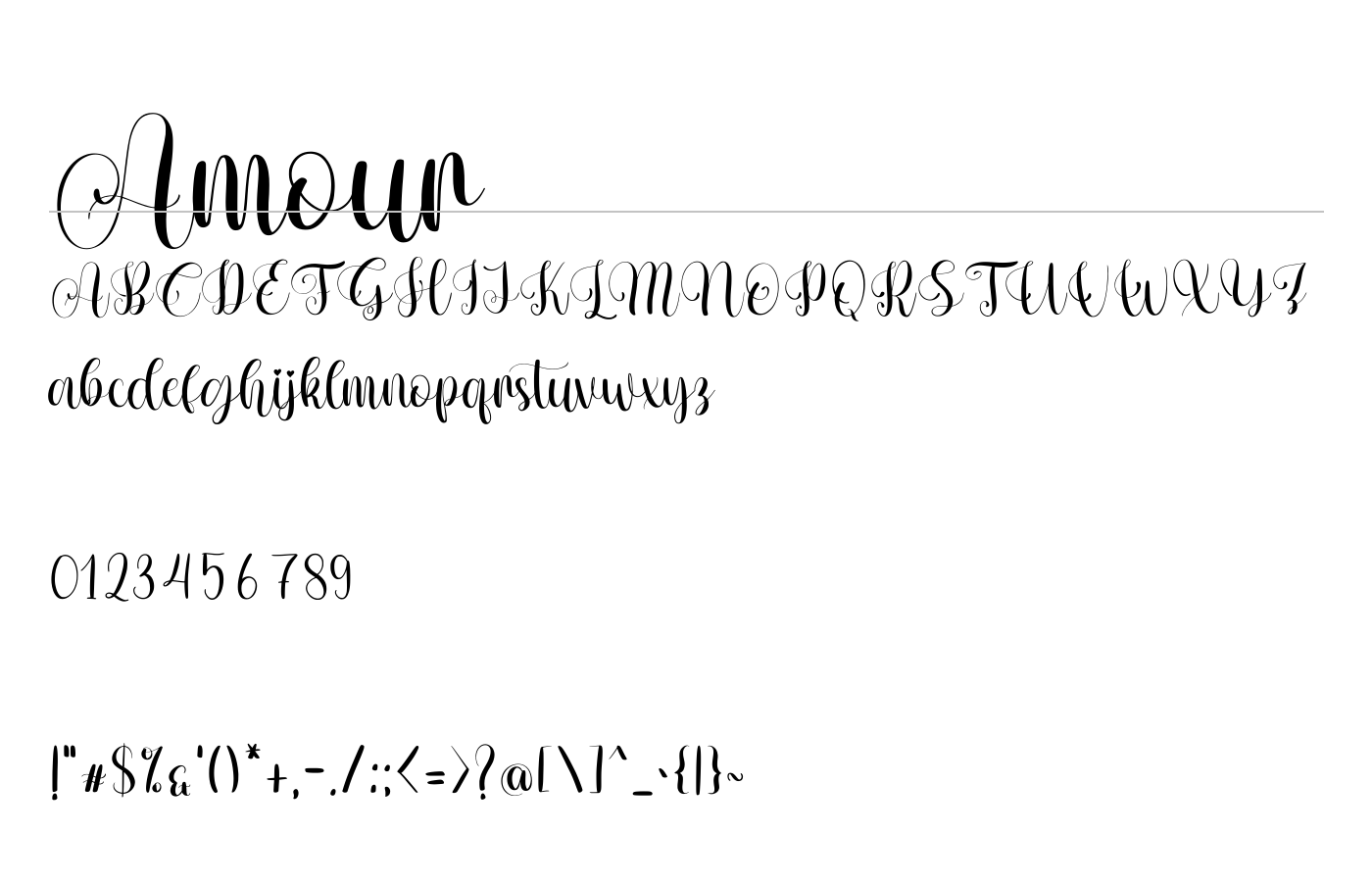
Amour is an elegant, delicate script font with a romantic and whimsical feel, characterized by its flowing, thin strokes and refined, curly letterforms. Its high contrast and graceful swashes make it perfect for luxury branding, wedding invitations, and feminine packaging where a sophisticated and stylish touch is desired. This font shines best in headlines and decorative accents, adding a charming, handcrafted flair to any design.
Amour Font
About Amour Font